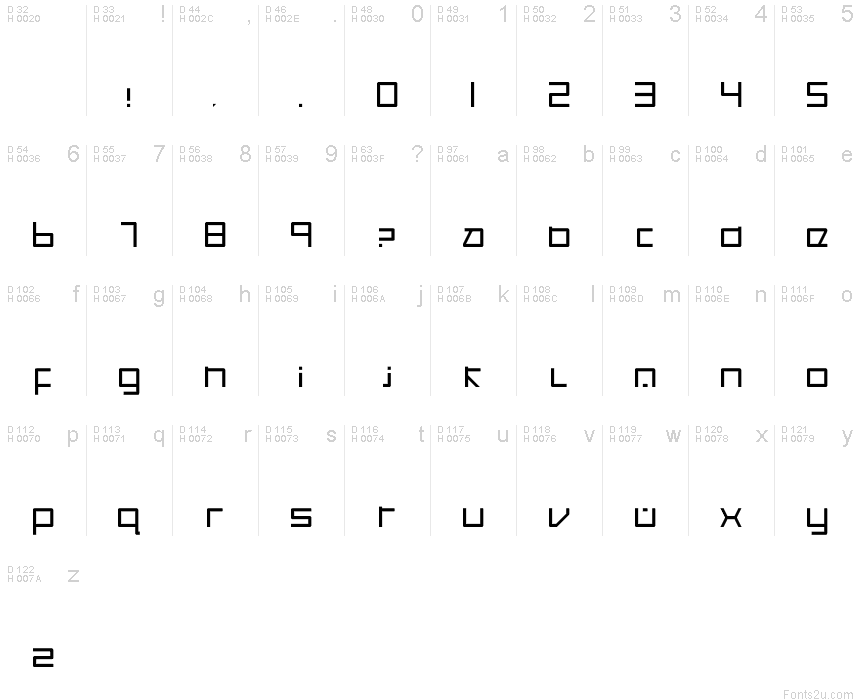
Cancranacancarnaca Redux: Sans Soft Regular
"A new set of 3 different fonts to contrast from the original and hopefully provide something new.
Redux Sans: The original, but thinned out and with modifications to some letters.
Redux Serif: Has the same modifications, but with added serifs. Certainly no book font, but good for little old style!
Redux Sans Soft: The title font. Sans, but with circled off edges. Reminds me personally of the 90's."